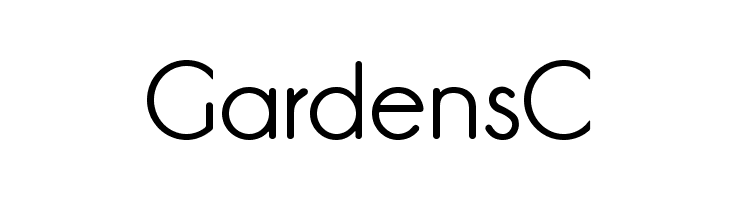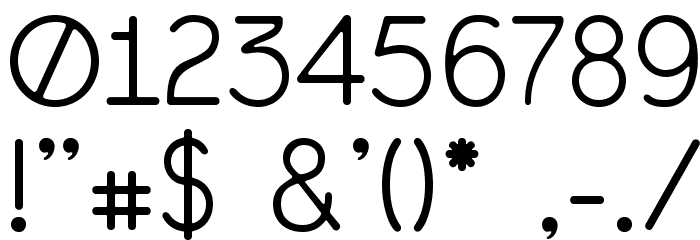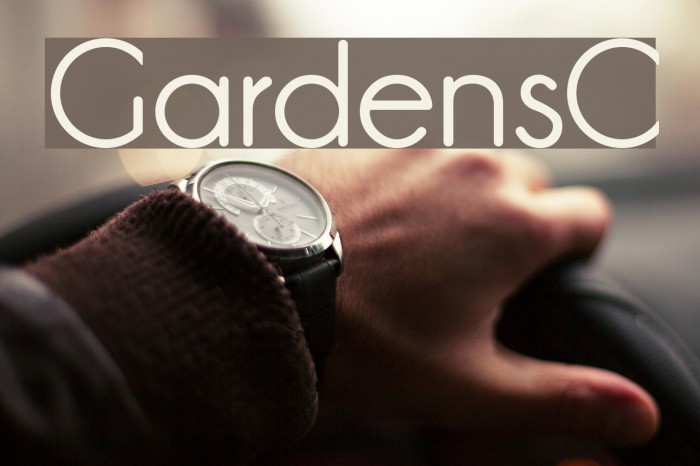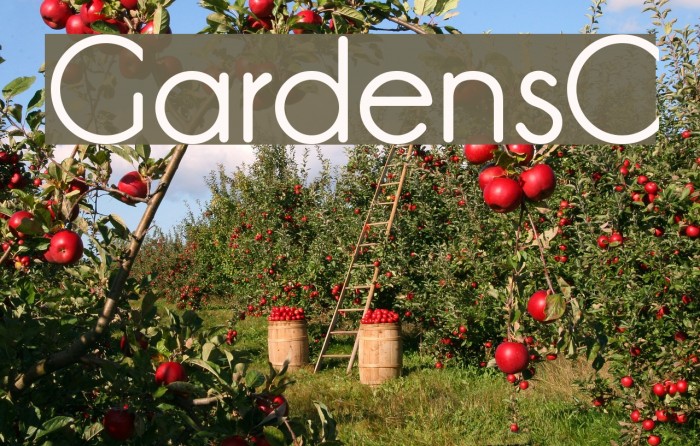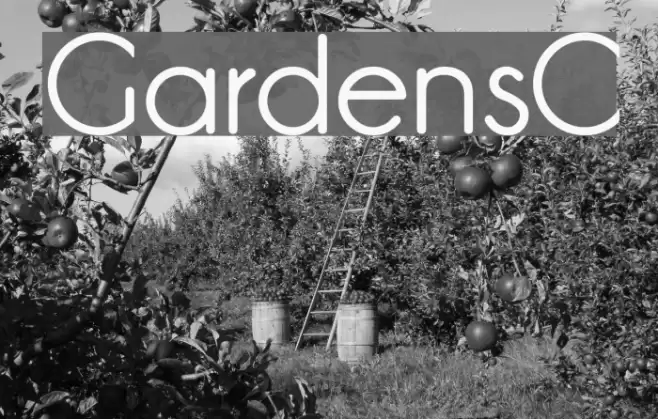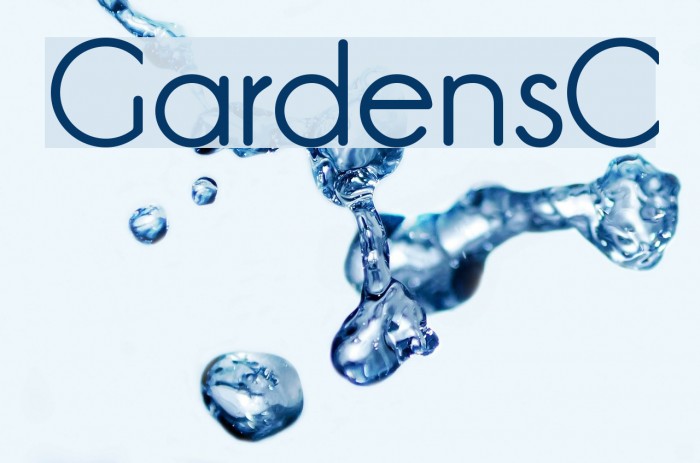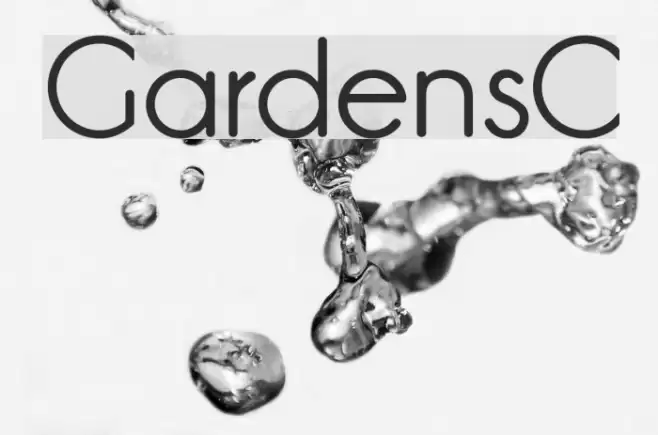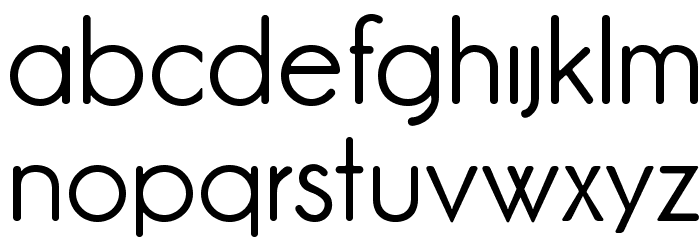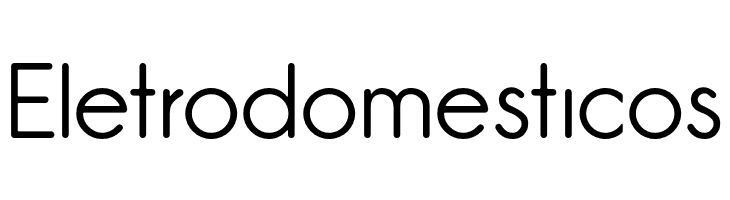
GardensC Font
This font features a clean and modern sans-serif style with rounded edges, giving it a friendly and approachable appearance. The characters are evenly spaced, providing a balanced and harmonious look. The uppercase and lowercase letters maintain a consistent height, while the numerals are clear and easy to read. Special characters are well-defined, adding versatility to the font's use. The overall design is simple yet effective, making it suitable for a wide range of applications.
A modern, rounded sans-serif font with clean lines and balanced spacing.
• Proposed Projects: Ideal for branding, web design, advertising, and user interfaces where a modern and approachable look is desired.
• Category: Sans-Serif
• Contrast: Low
• Overall Style: Modern
• Use Case: Headlines, Body text, Logos